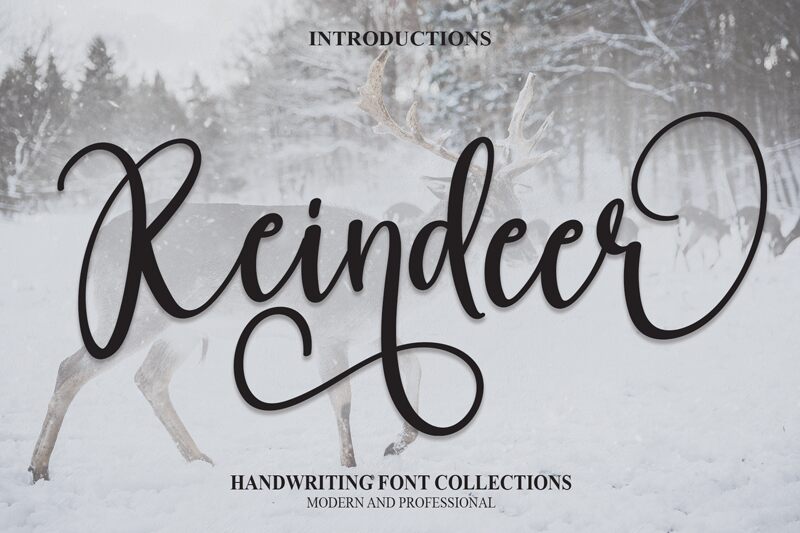
Reindeer
Reindeer font, designed by scratchones, is a whimsical and playful handwritten typeface that adds a touch of charm to any project. Its semi-light weight makes it perfect for creating eye-catching titles and headlines, while its unique style is great for projects focused on children's books, greeting cards, or invitations. The Reindeer font brings a sense of warmth and friendliness to your designs that will make them stand out from the crowd. So whether you're working on a holiday-themed project or just want to add some fun flair to your design work, Reindeer is the perfect choice!
the latest style letters are perfect for wall displays, wedding invitations, social media post logos, advertisements, product packaging, product designs, labels, photography, watermarks, invitations, stationery, and any project that requires taste handwriting.